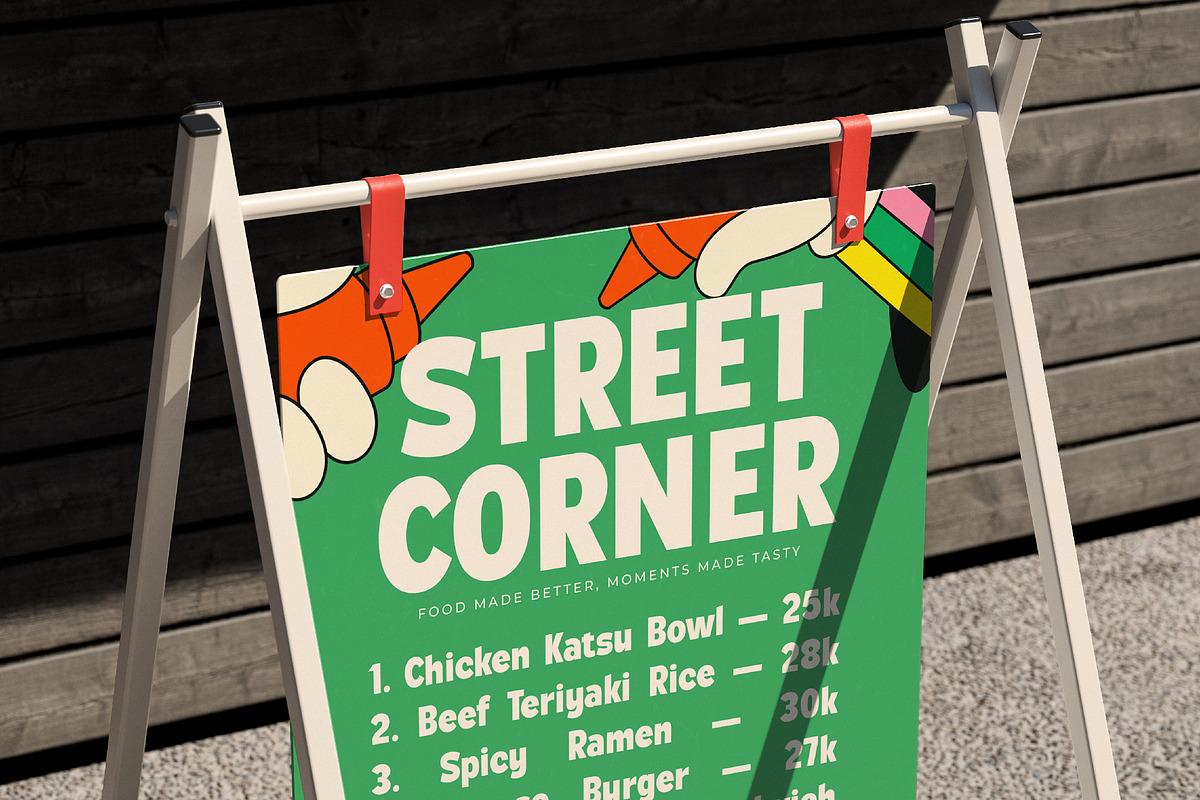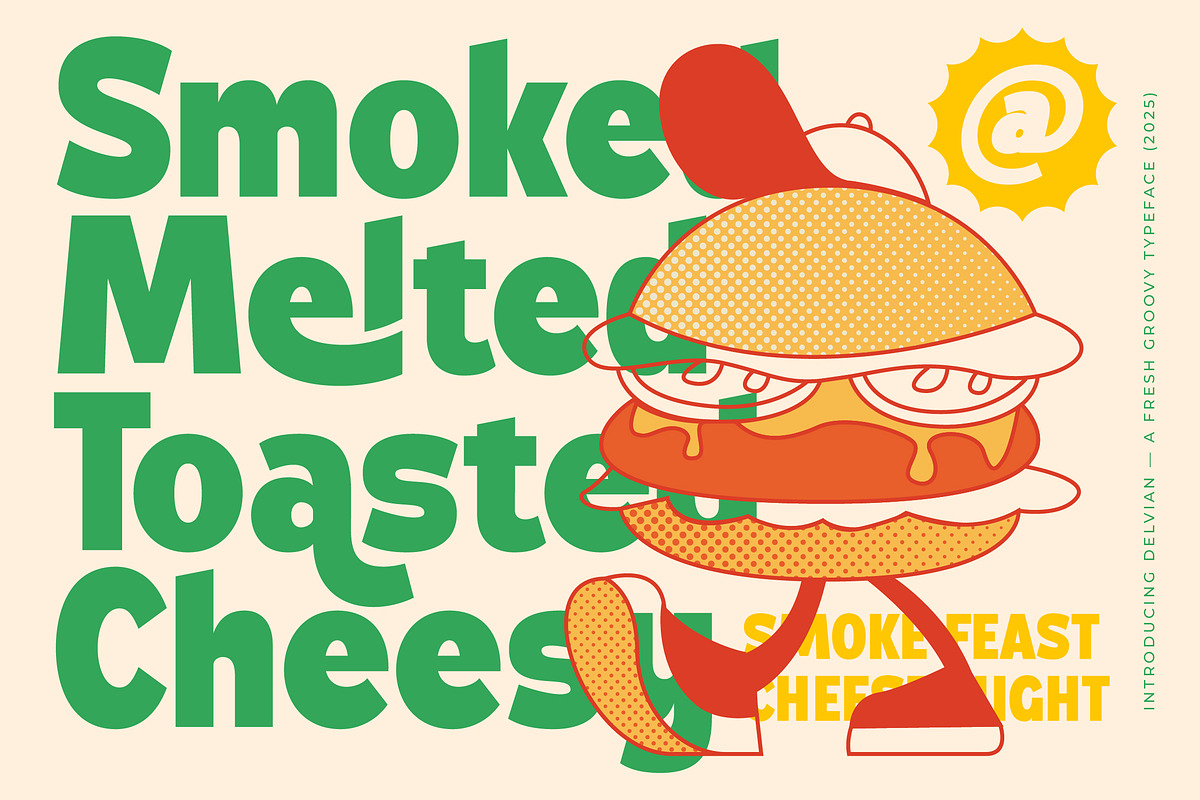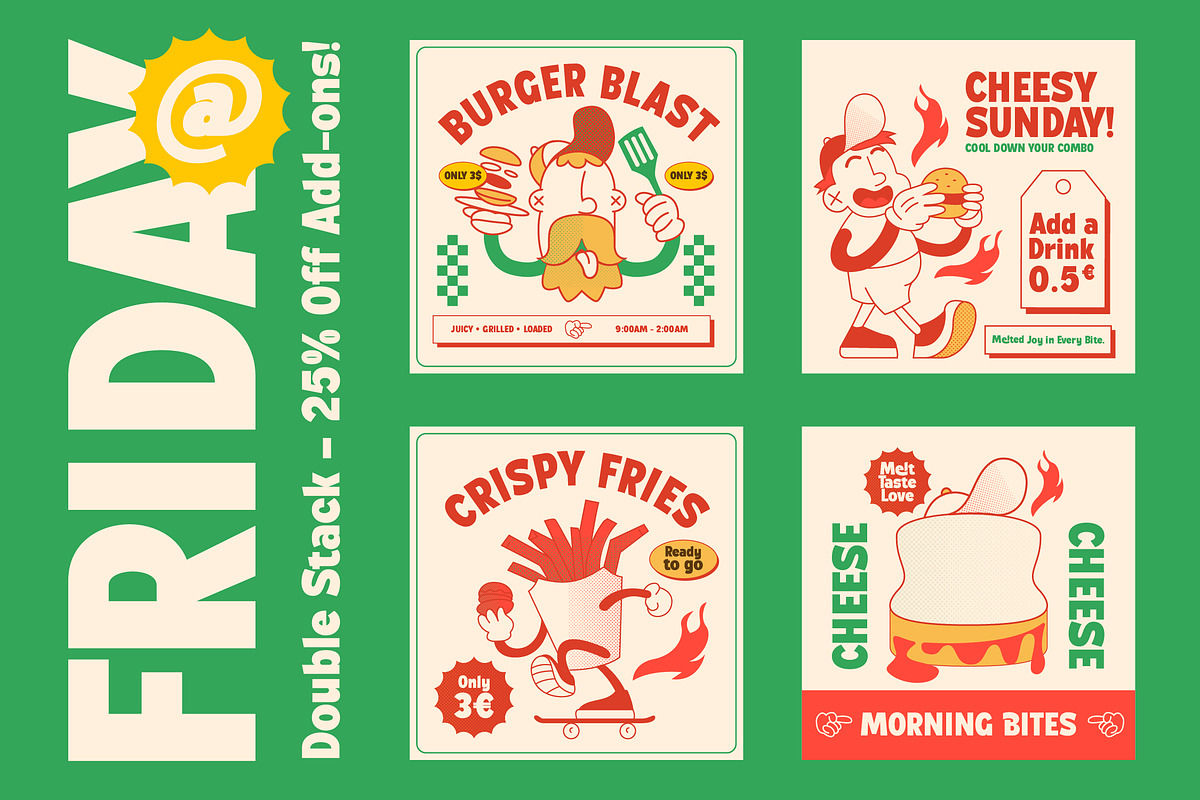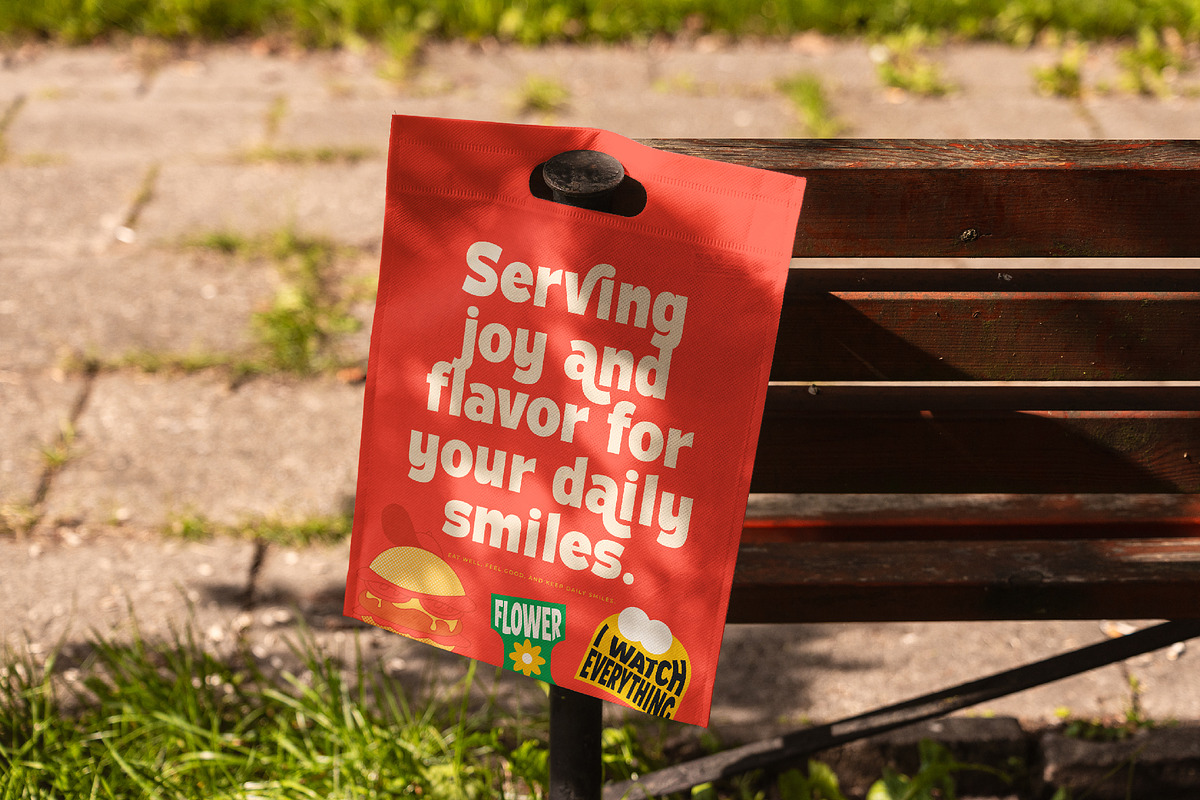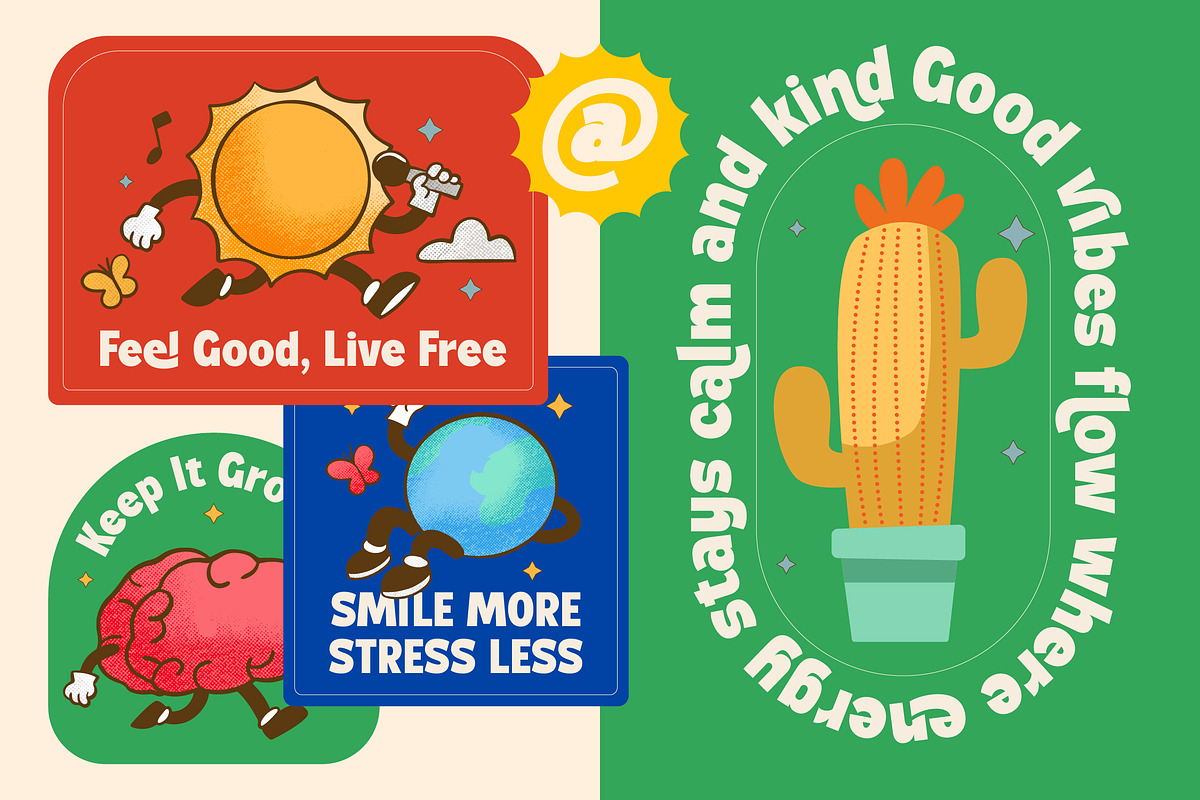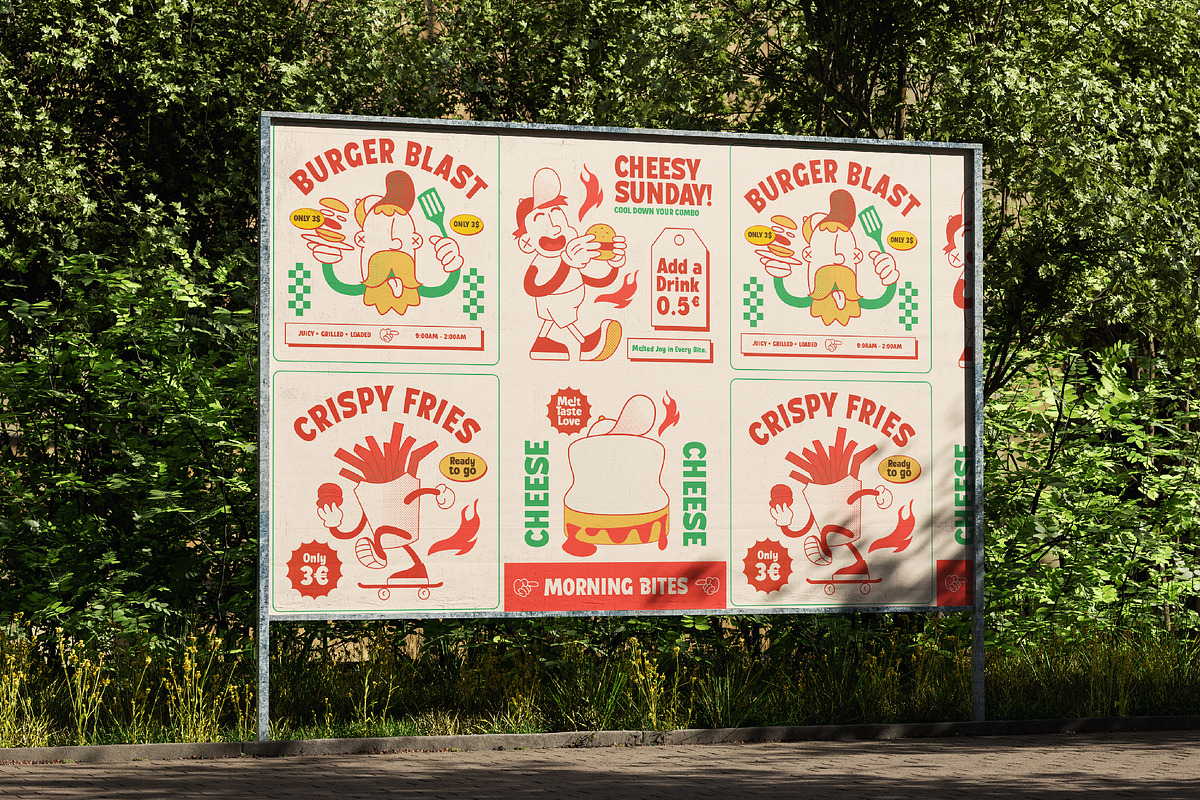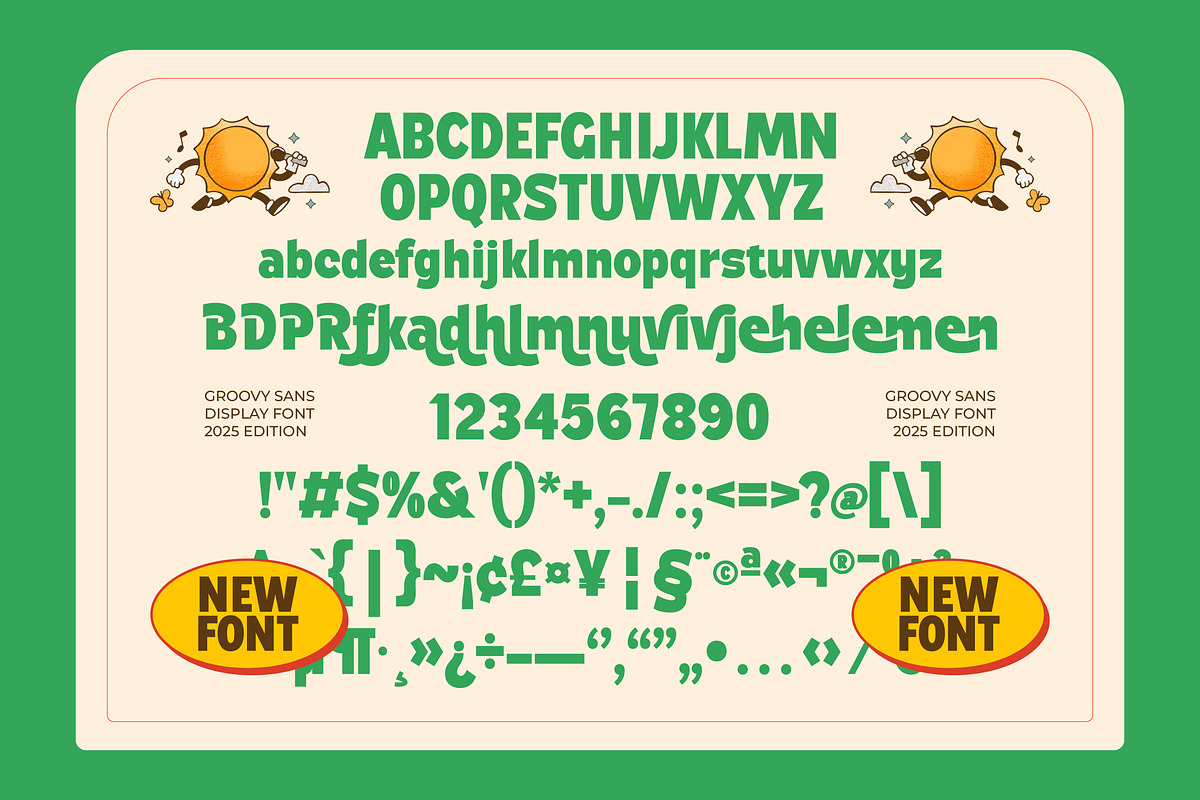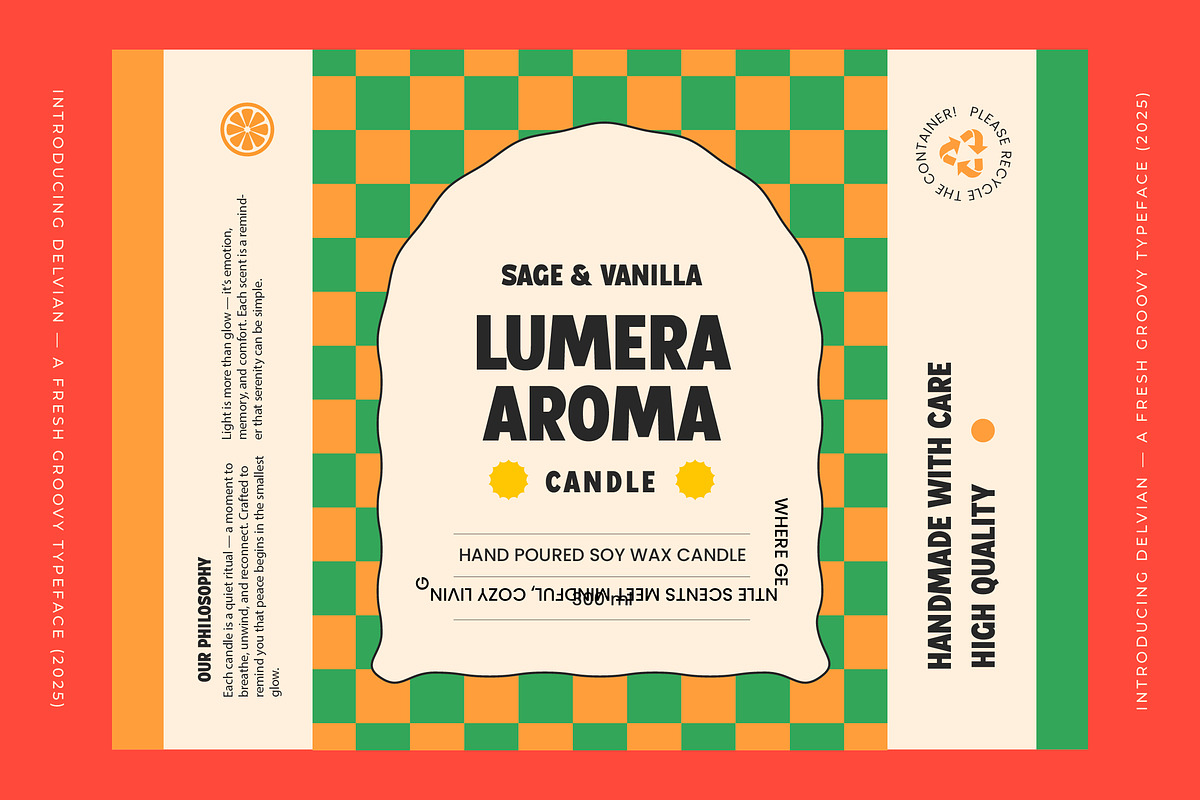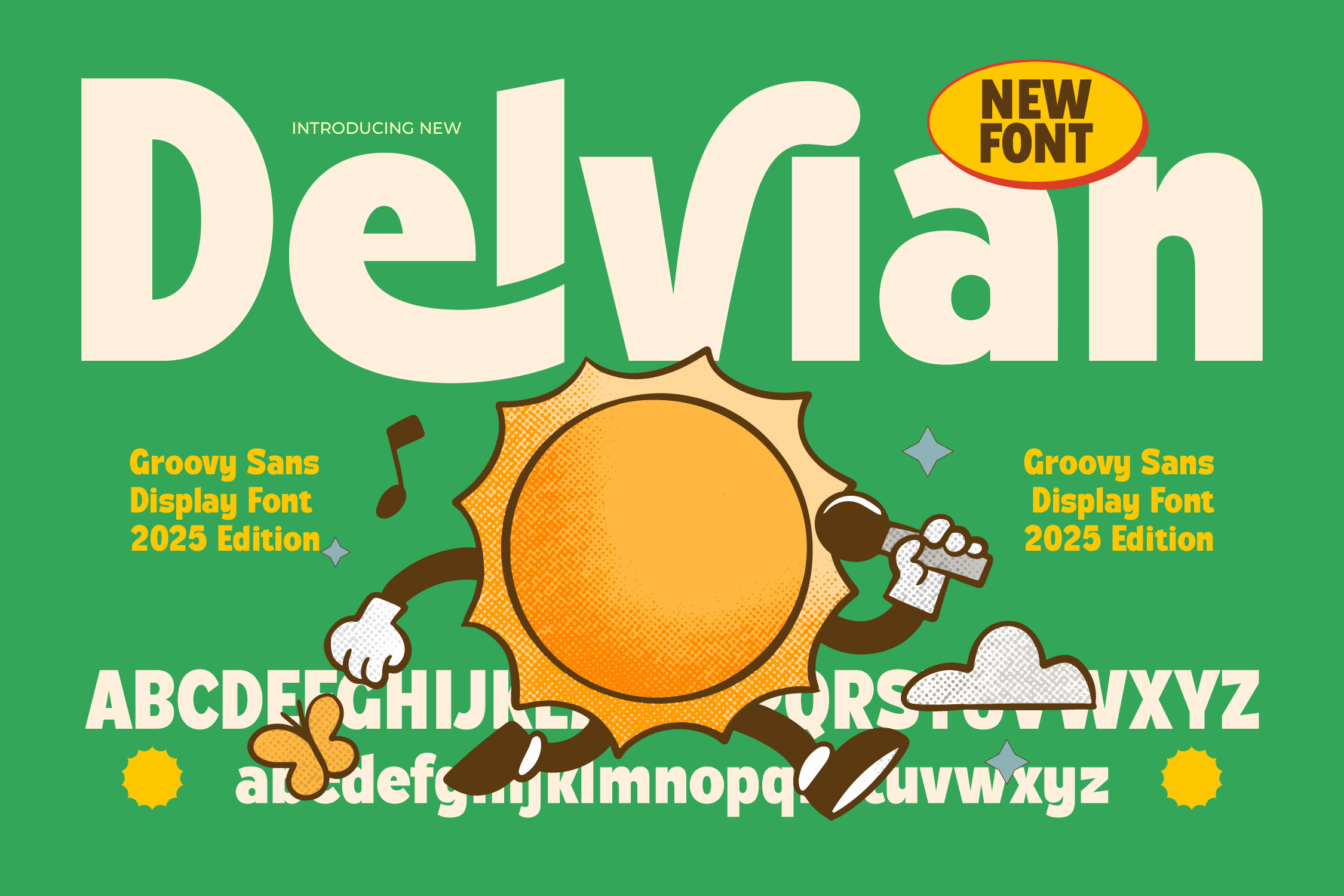
Delvian Groovy Display Fonts
Delvian Display Font
Delvian font is a unique, modern geometric font with a retro, vintage, bold, unique, elegant, modern, and geometric style. It is a bold vintage script font perfect for branding projects, logos, social media posts, product packaging, labels, etc.